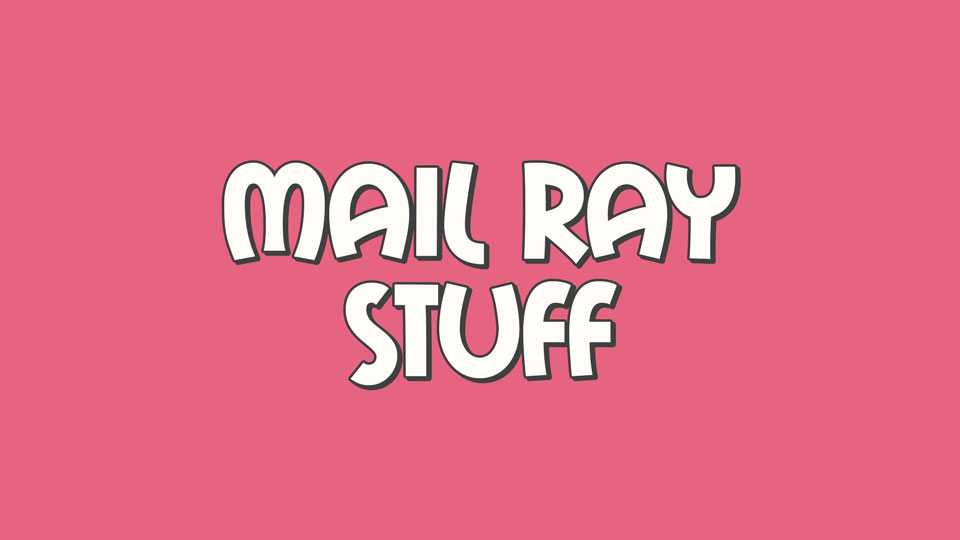
Download Mail Ray font, a seductive and insouciant typeface inspired by the playful energy of Menudo records from the 1980s. It captures the carefree spirit with its smooth, flowing letterforms.